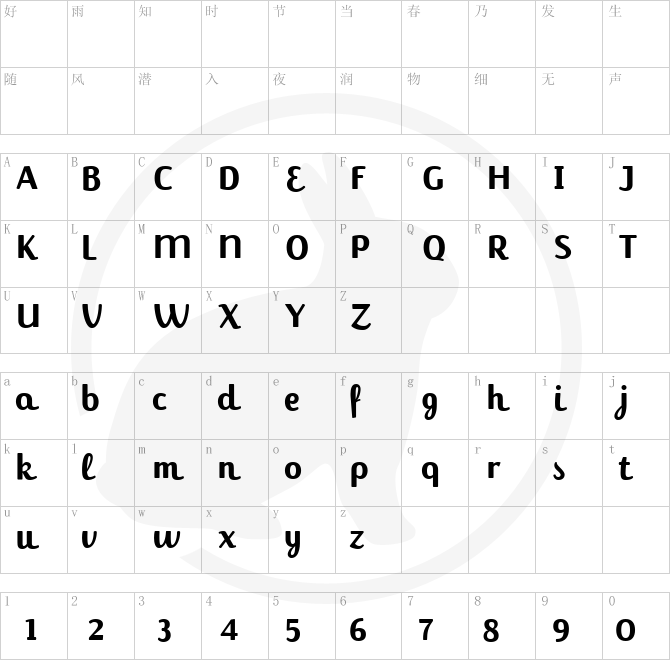
JackieFullBold.ttf is a very beautiful artistic font, JackieFullBold.ttf is widely used in the design and printing of various books and pictures,JackieFullBold.ttf has a strong visual impact,JackieFullBold.ttf is a commonly used font in newspapers, magazines and books, and is used in posters, e-commerce Poster design, store design, logo design, font design and other fields.JackieFullBold.